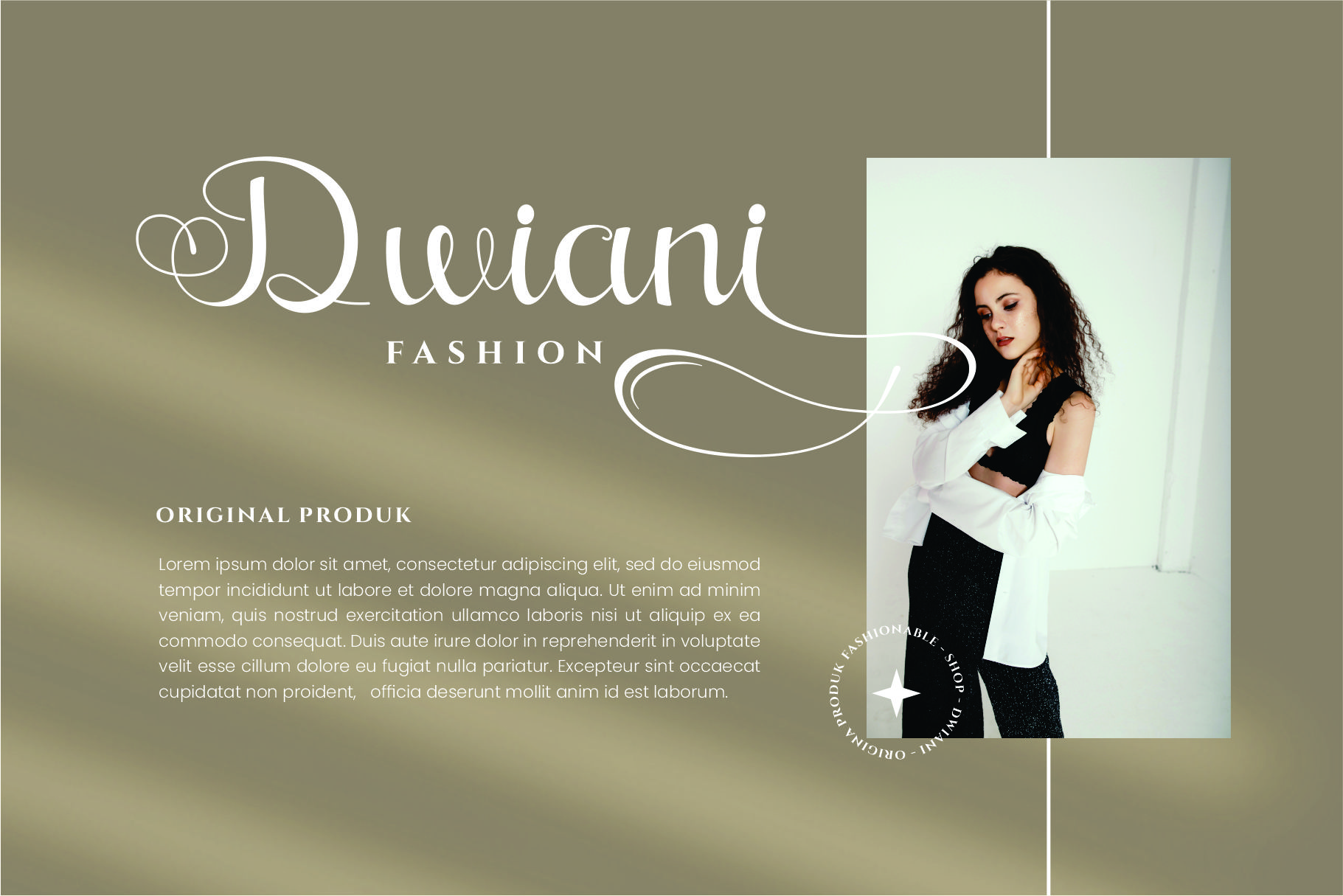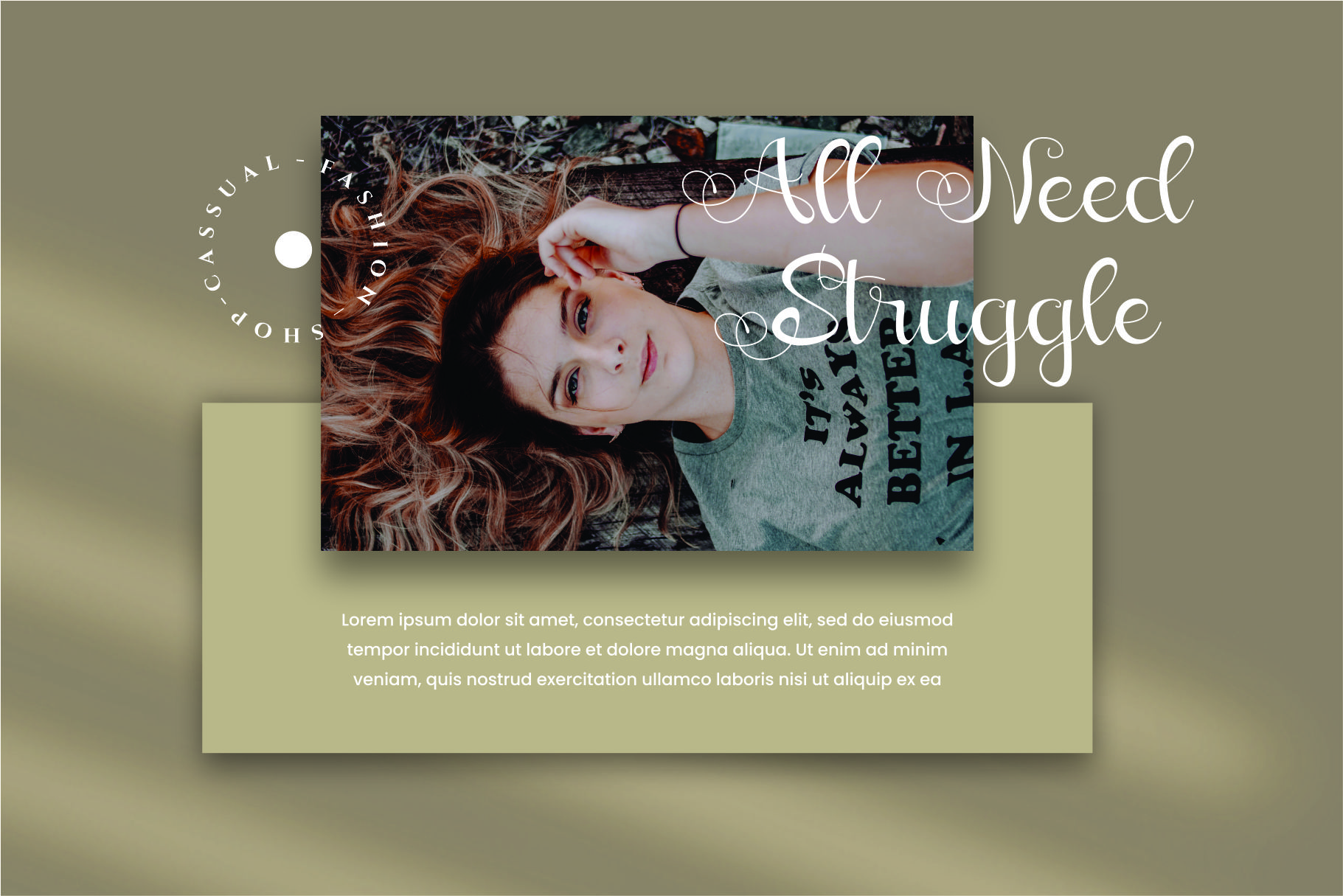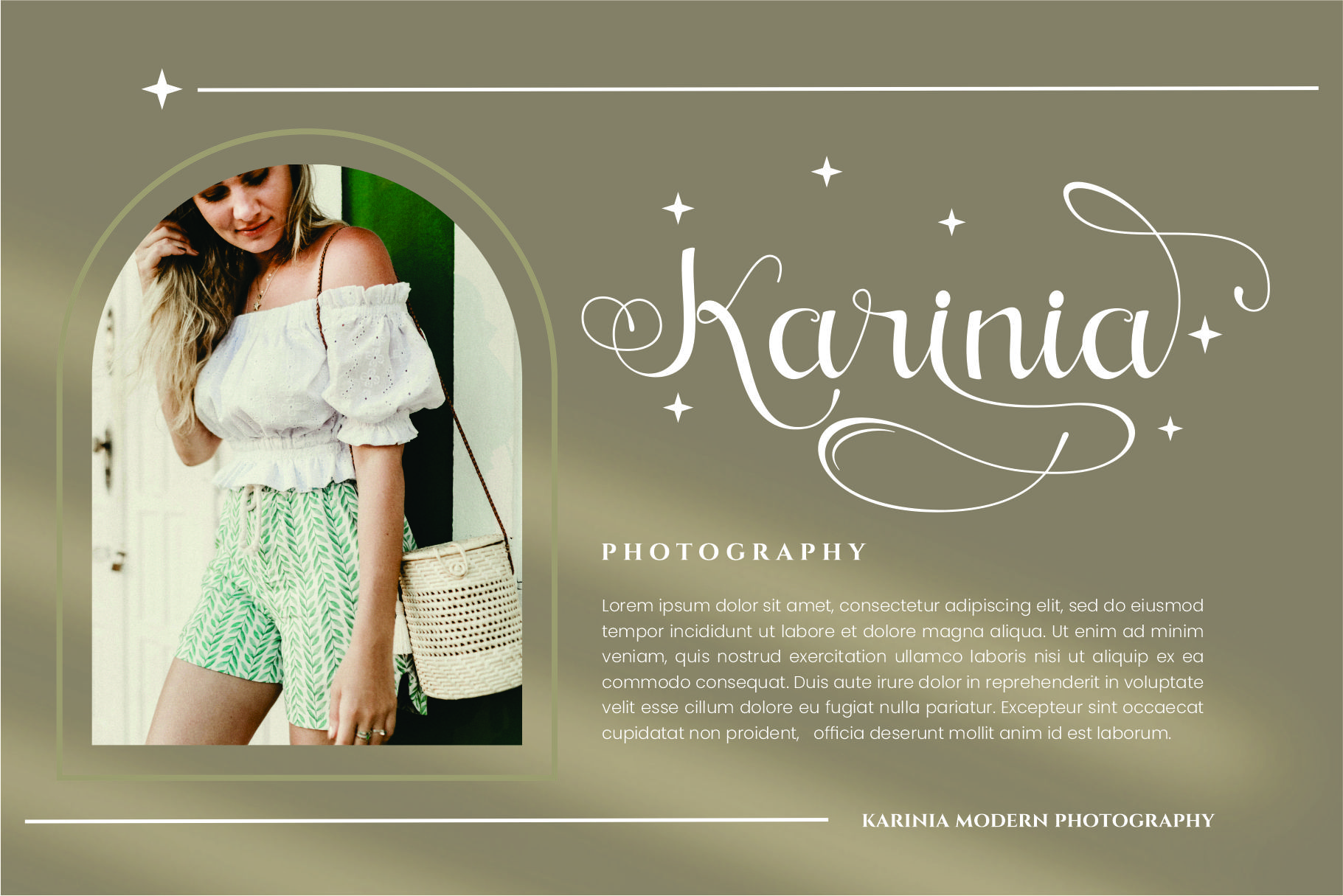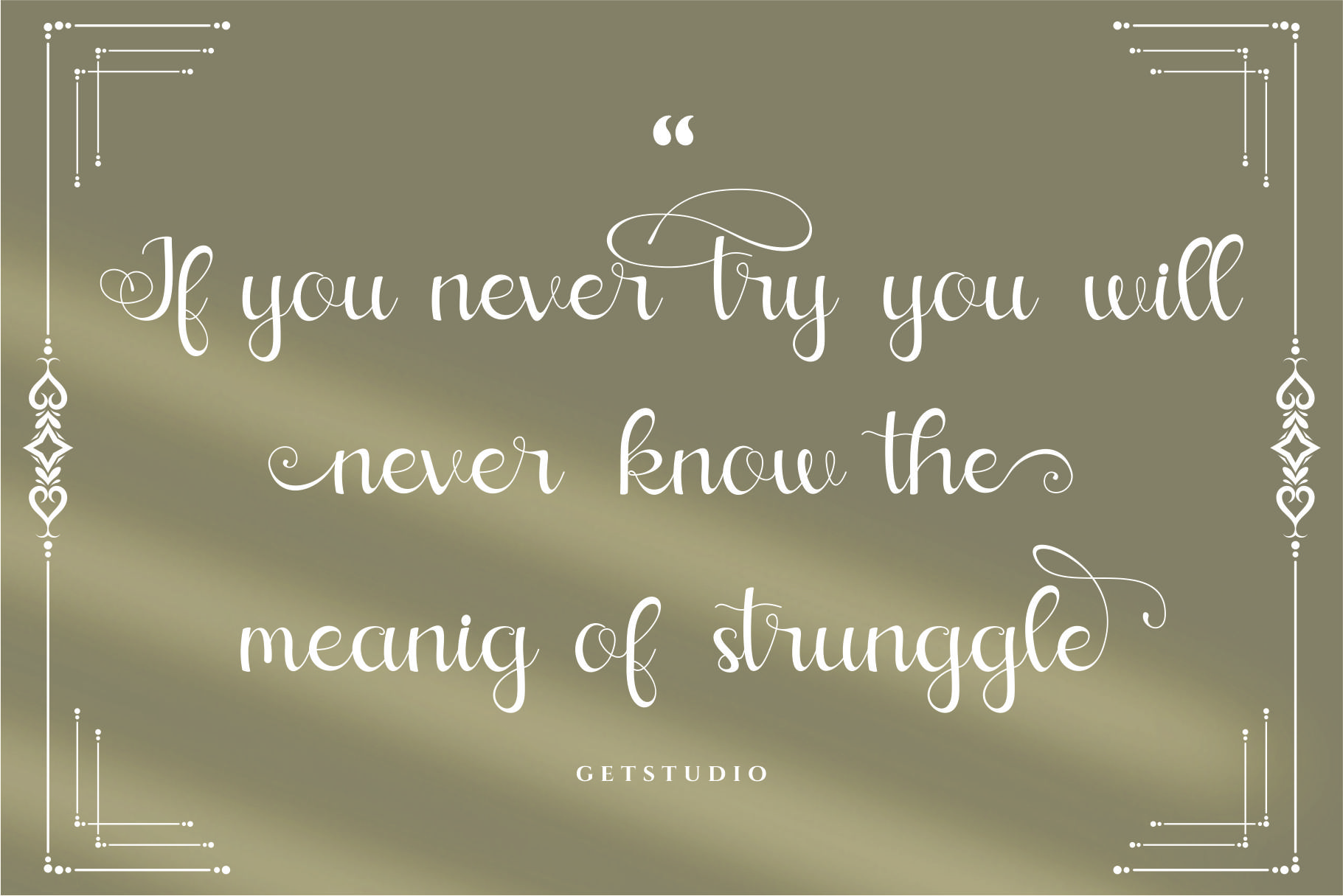
Nagita Calligraphy Font
It’s a elegant calligraphy font. The different letters make this font has its own charm. Fall in love with its incredibly versatile style and use it to create spectacular designs. This font is PUA encoded which means you can access all of the glyphs and swashes with ease!